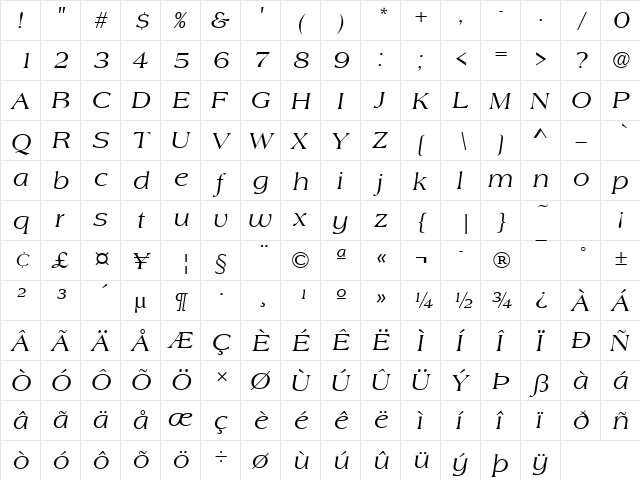
AmericanaT Italic Font Preview
AmericanaT Italic
AmericanaT Italic Font Details
Design Context for AmericanaT Typeface
AmericanaT is a composed and adaptable typeface that performs quietly and consistently across a wide range of design contexts. The dynamic lean of this cut emphasises speed and emphasis in any layout.